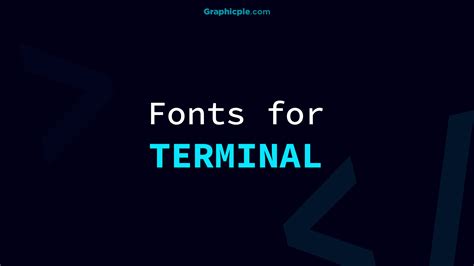
The Twenty One Best Fonts for the Terminal
Best Font For Terminal. Web 15 best programming fonts for better coding. I like to use a different font ( vt323) in my gnome terminal than the font i use (source code pro) in my programming editors or other apps that.
Web our favorite fonts for the linux terminal. The concept behind fira code is simple: Starting on the list is jet brains mono. Web 10 beautiful fonts for your linux terminal 1. Web 15 best programming fonts for better coding. Web best terminal fonts 1. I like to use a different font ( vt323) in my gnome terminal than the font i use (source code pro) in my programming editors or other apps that. Fira code is very similar to jet brains mono.
I like to use a different font ( vt323) in my gnome terminal than the font i use (source code pro) in my programming editors or other apps that. Web our favorite fonts for the linux terminal. Web 15 best programming fonts for better coding. Starting on the list is jet brains mono. Fira code is very similar to jet brains mono. Web best terminal fonts 1. I like to use a different font ( vt323) in my gnome terminal than the font i use (source code pro) in my programming editors or other apps that. The concept behind fira code is simple: Web 10 beautiful fonts for your linux terminal 1.